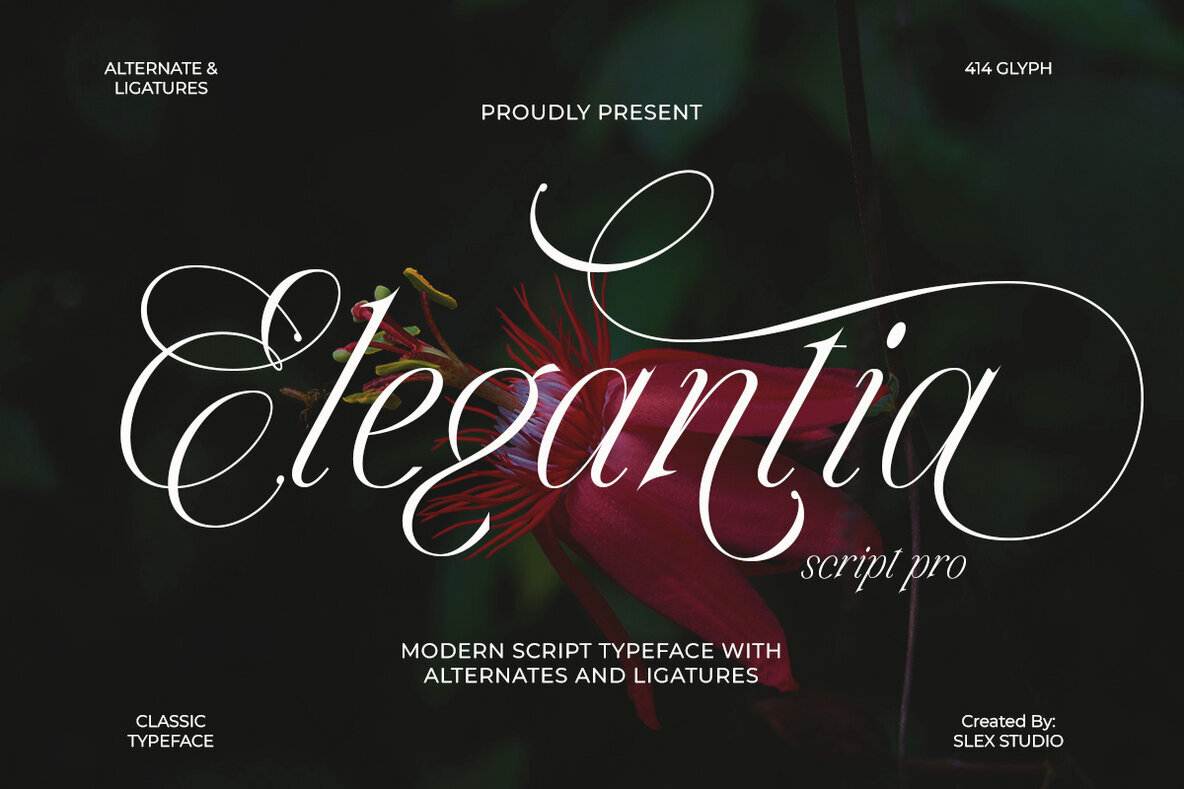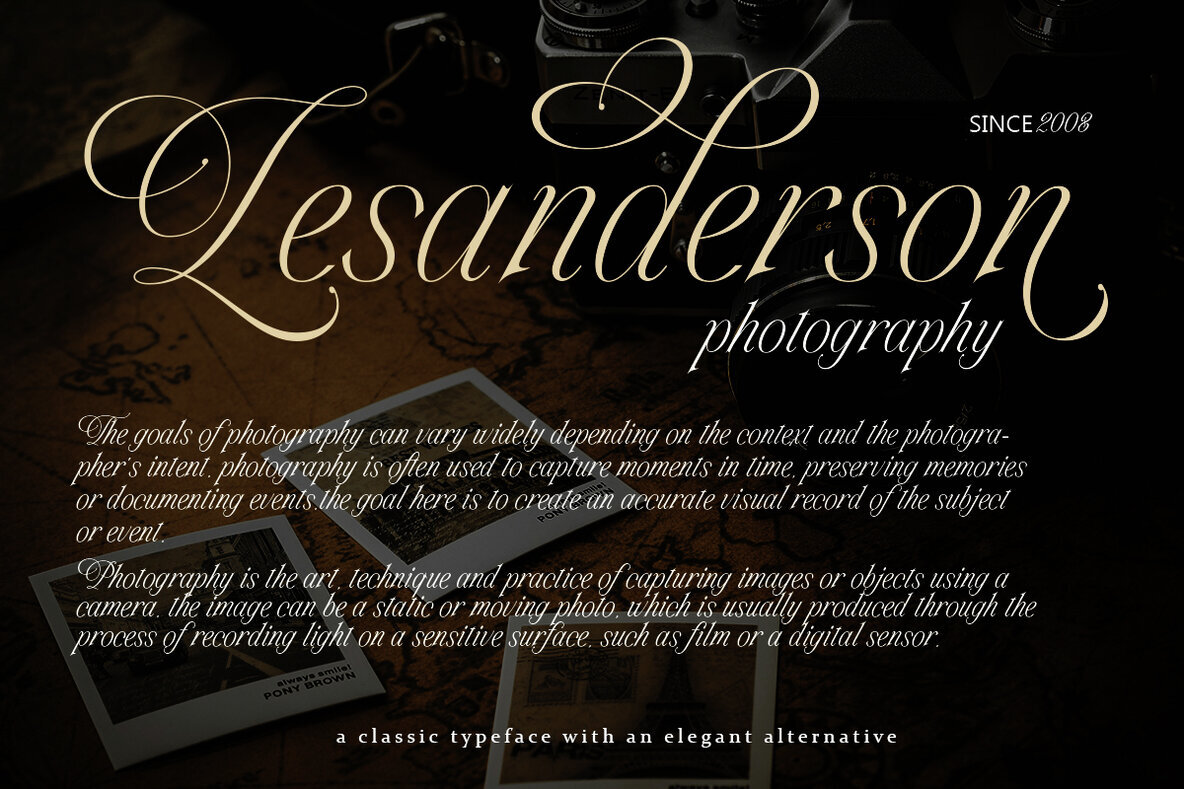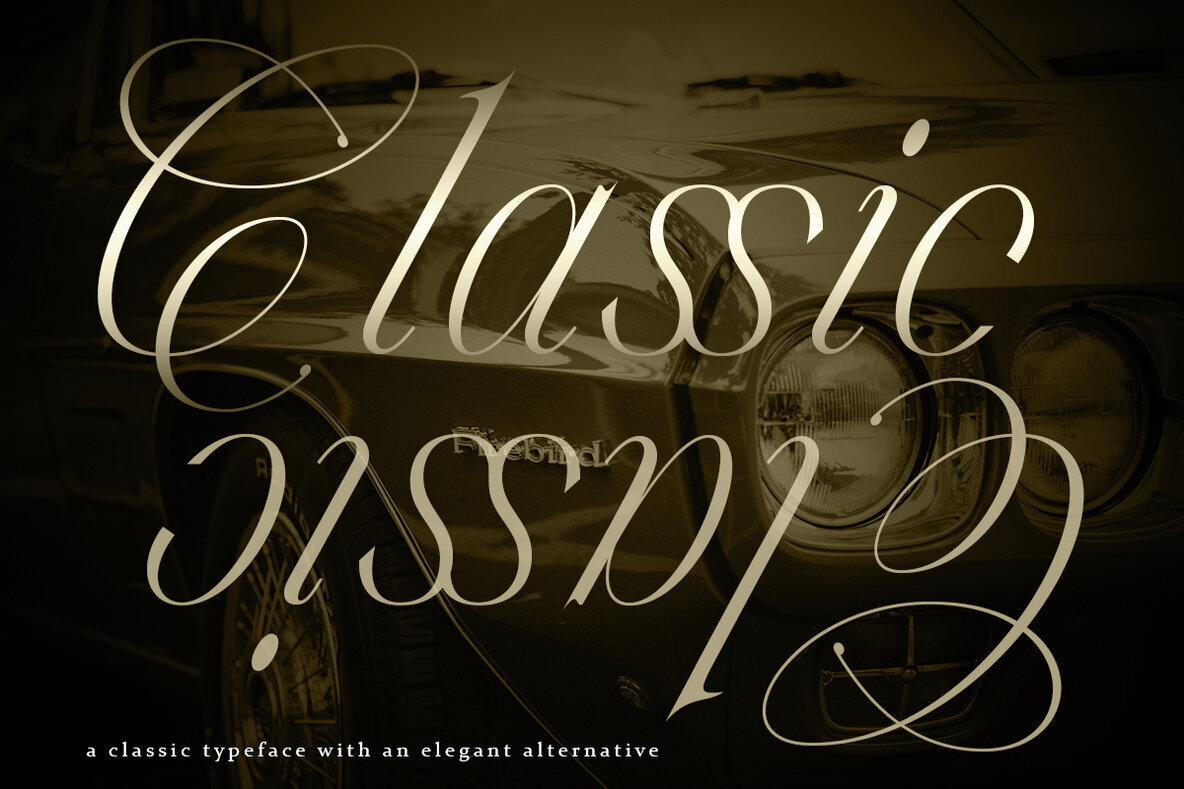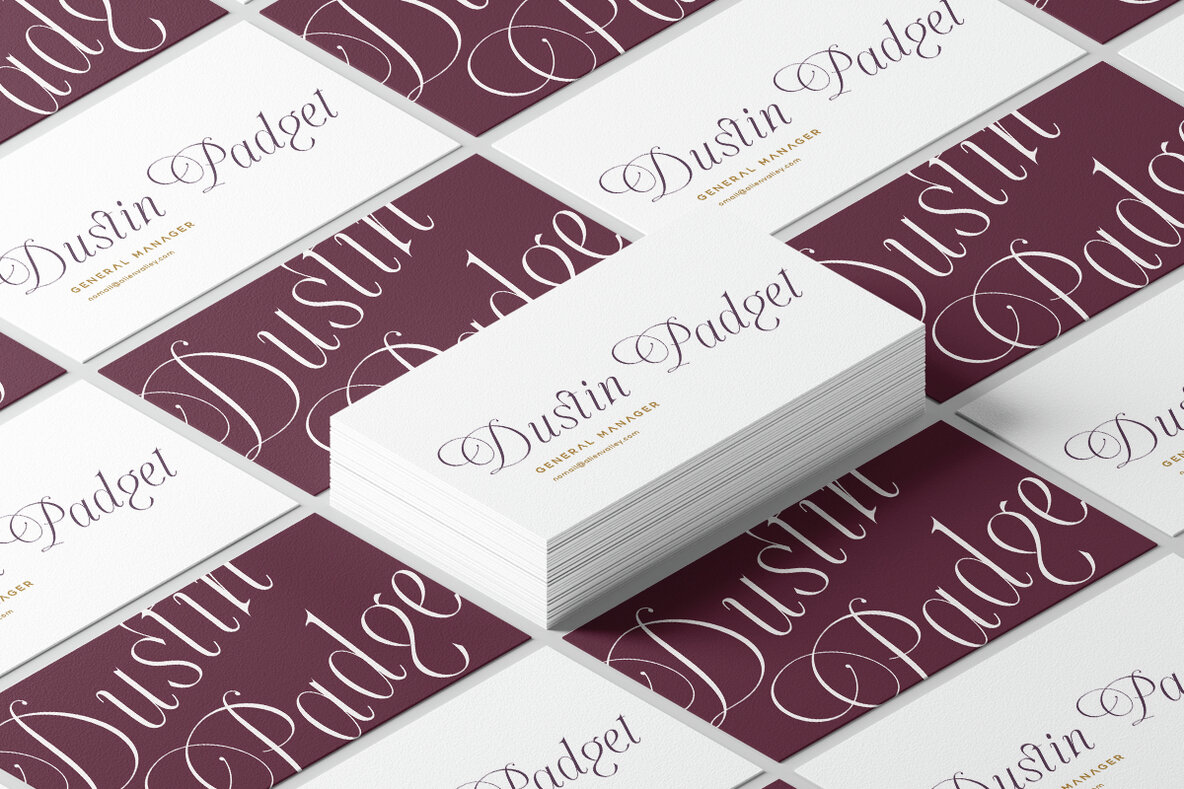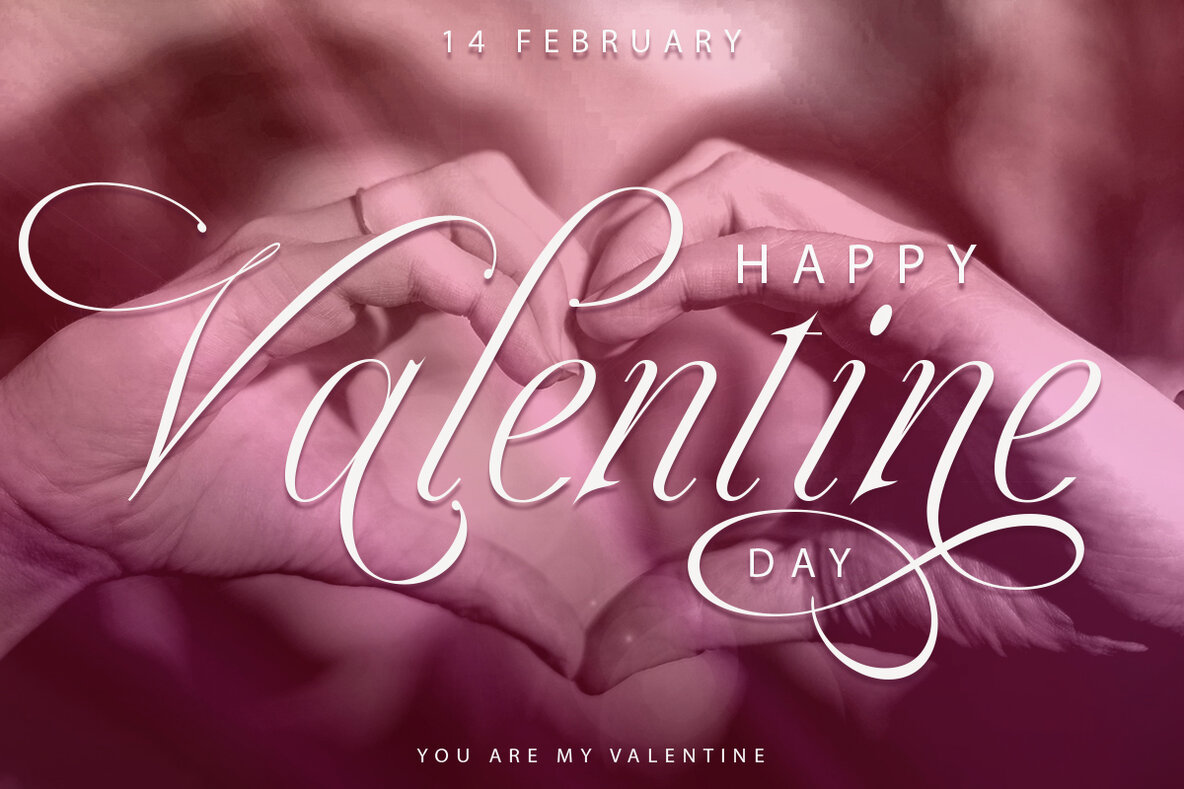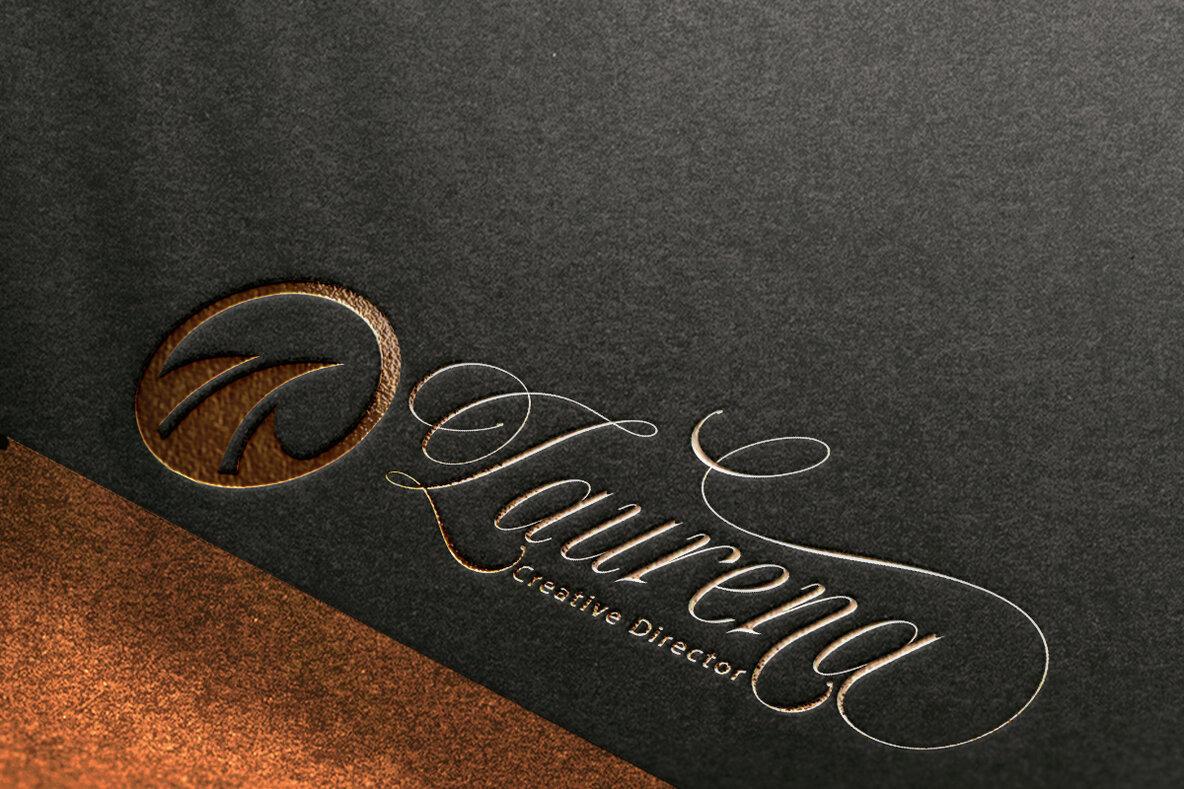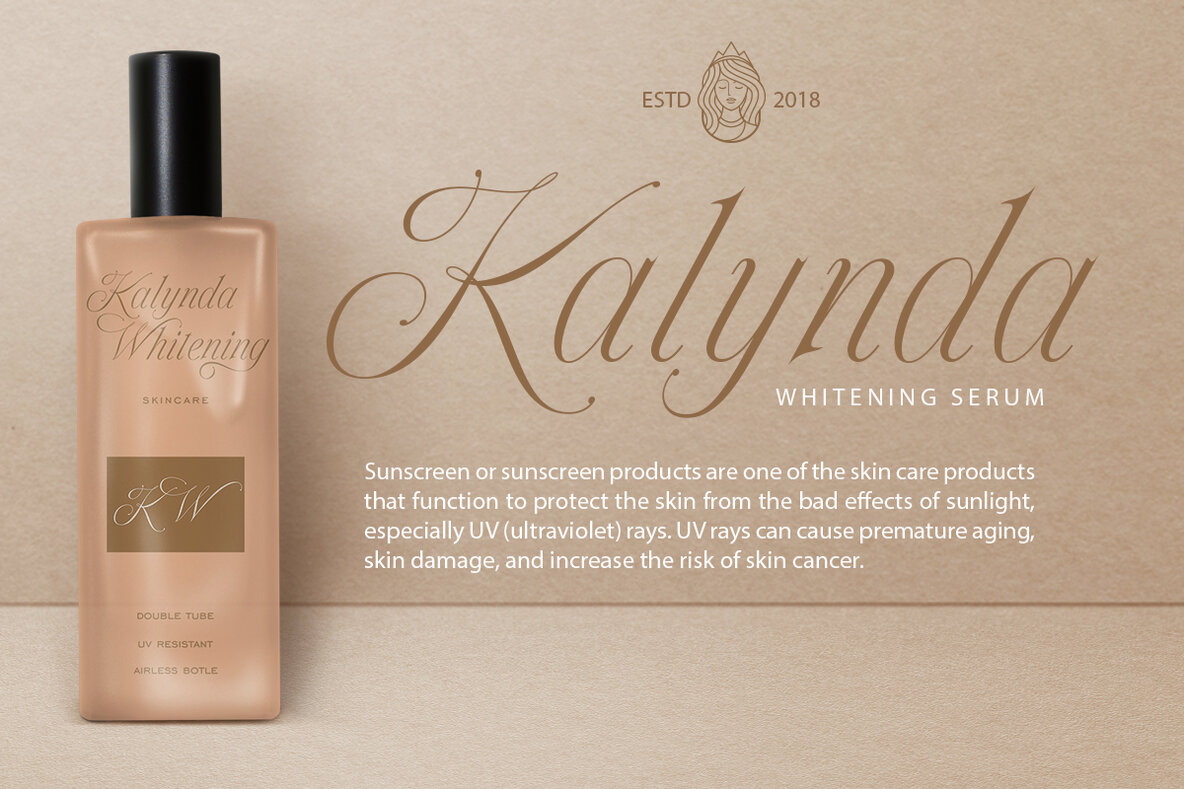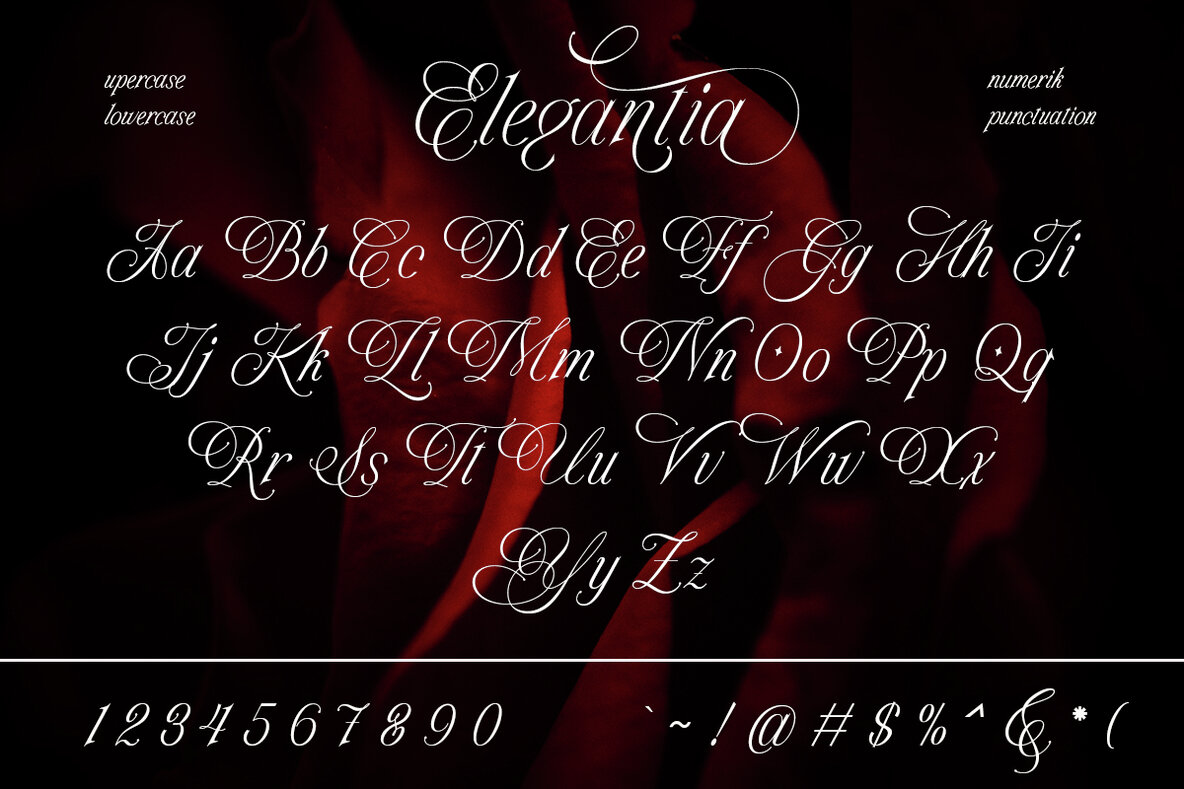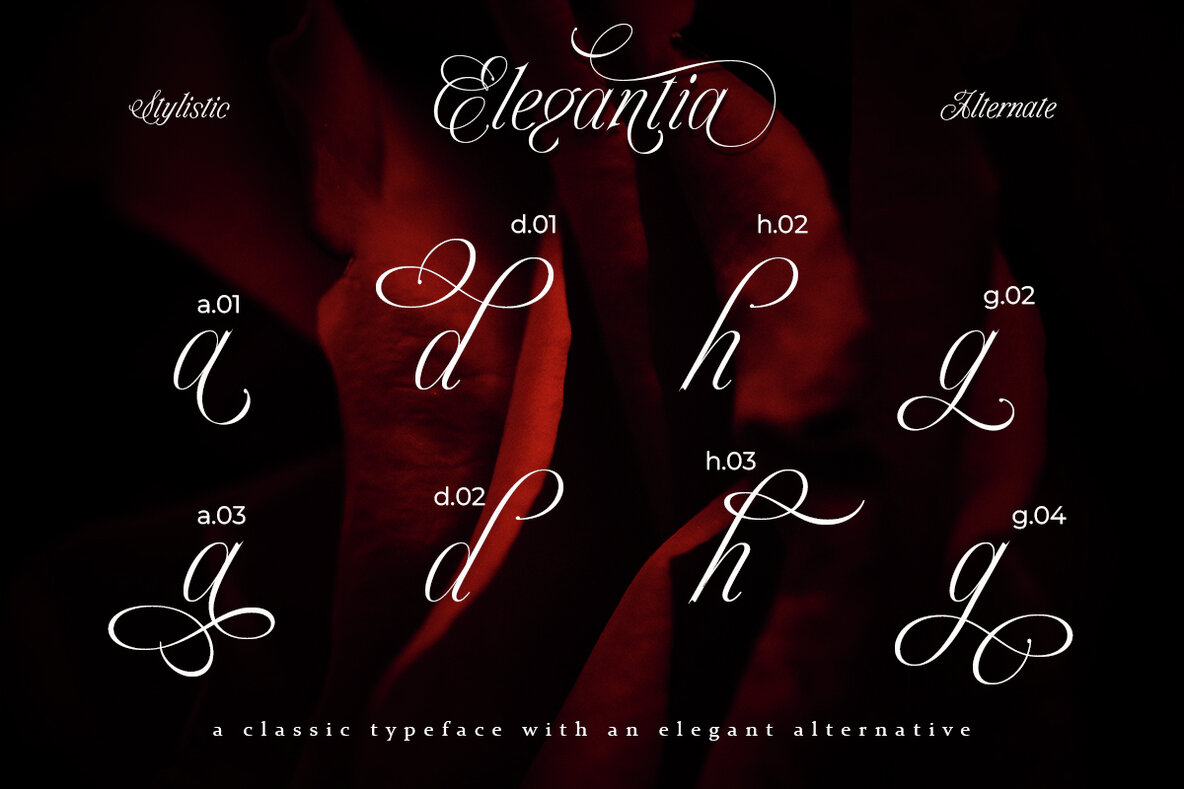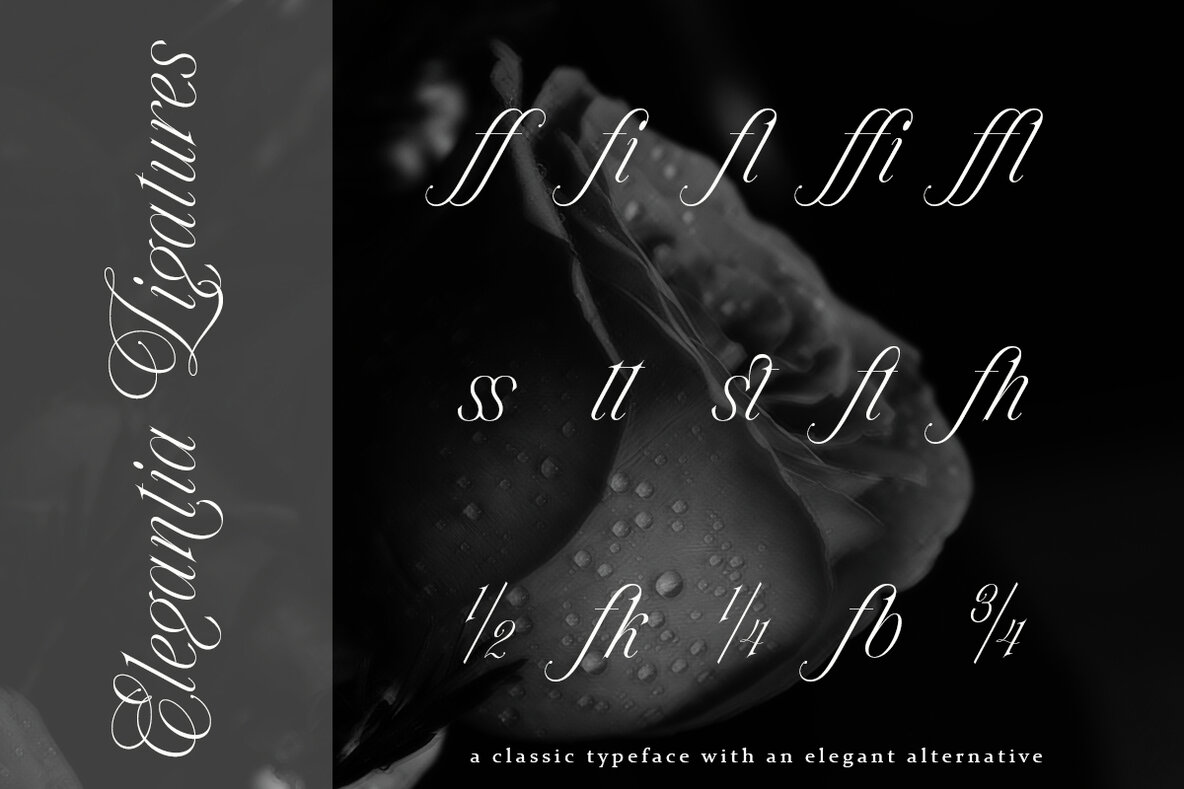
Elegantia Font
Elegantia Pro Regular
Elegantia by Slex Studio is a distinguished script typeface that embodies timeless sophistication and effortless charm. Its graceful curves and fluid, hand-lettered style capture a sense of elegance, making it ideal for high-end branding, luxurious invitations, and artistic designs. The font's delicate yet confident strokes blend classic calligraphy with modern flair, striking a perfect balance between tradition and contemporary beauty. Designed to enhance the aesthetics of weddings, boutiques, or exclusive events, Elegantia infuses each project with class and charisma. This typeface leaves a lasting impression of refinement and style, making it an indispensable asset for those seeking to convey elegance and allure.Elegantia Typeface